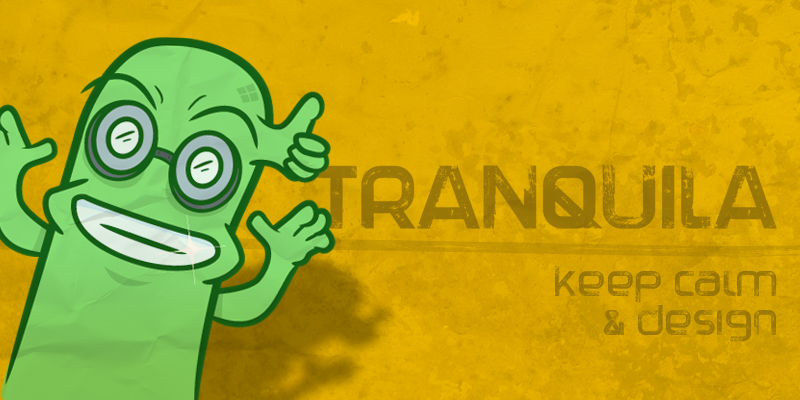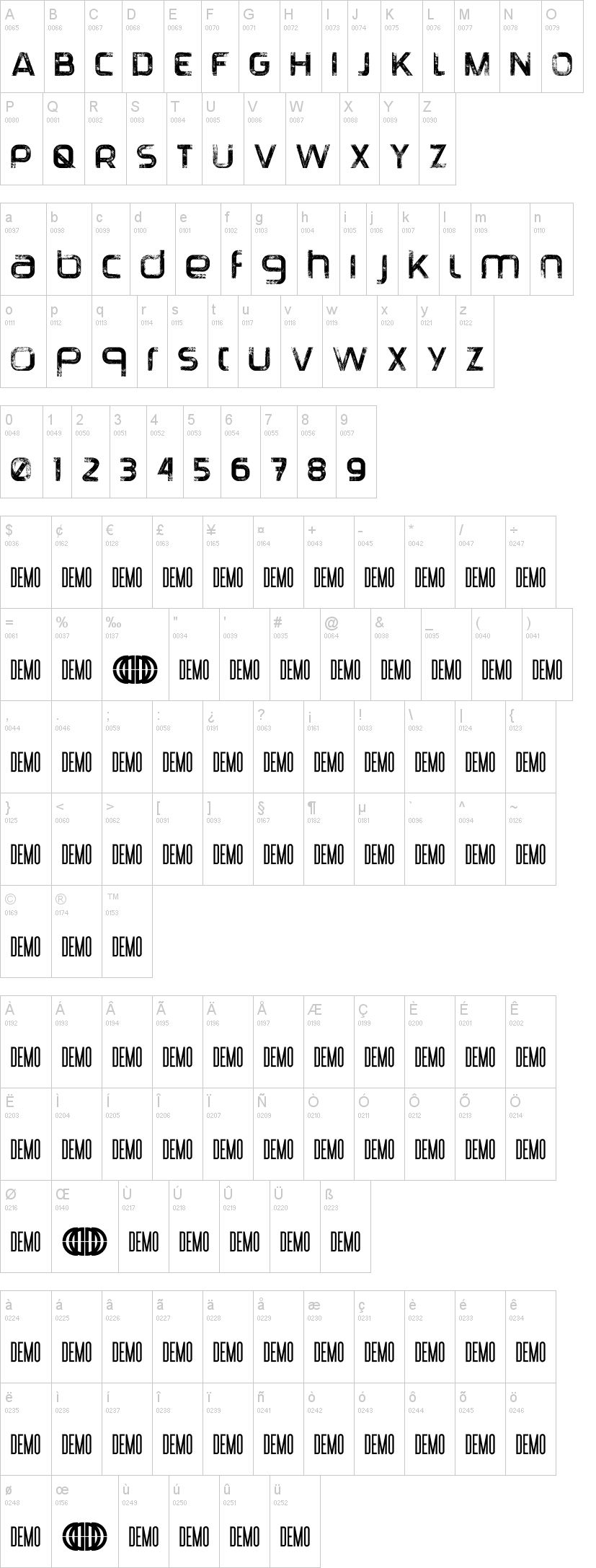
Note of the authorThis is a DEMO version of my new font TRANQUILA. This is a dirty-irty-irty multipurpose font for you to get down with. Make your titles more thuggish ruggish and bold. Make your designs make a statement. Keep calm & design with Tranquila!
This is a grunge font with one weight. The demo version includes an uppercase and lowercase set, as well as numbers. Purchase the full version for only 5$ here: